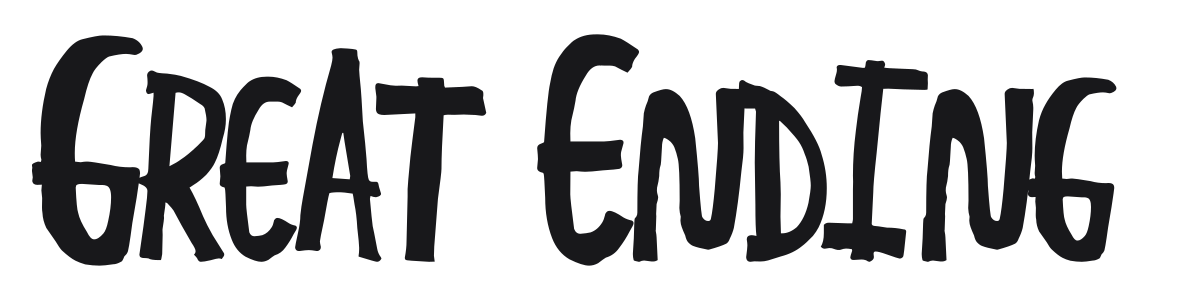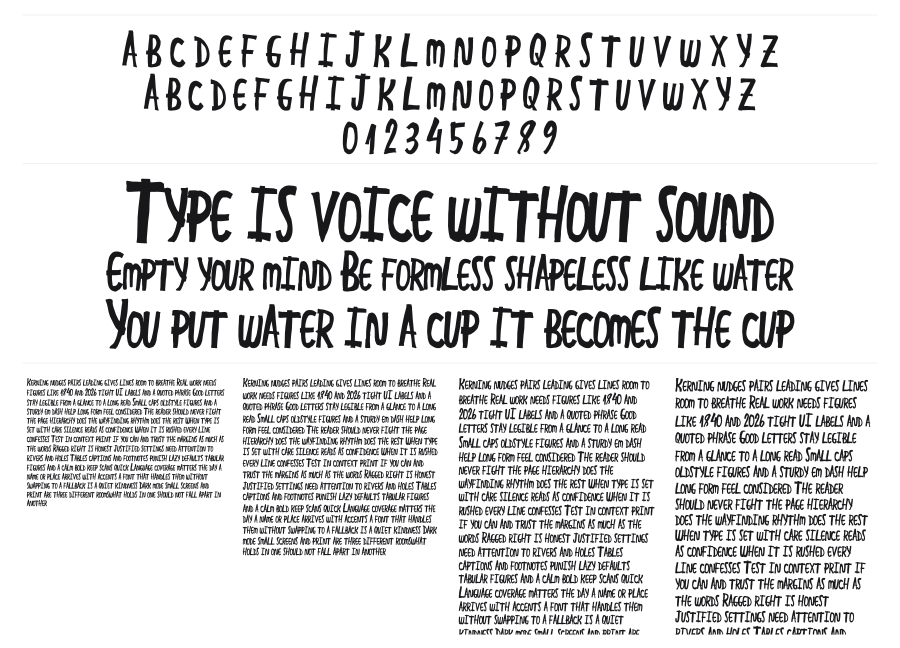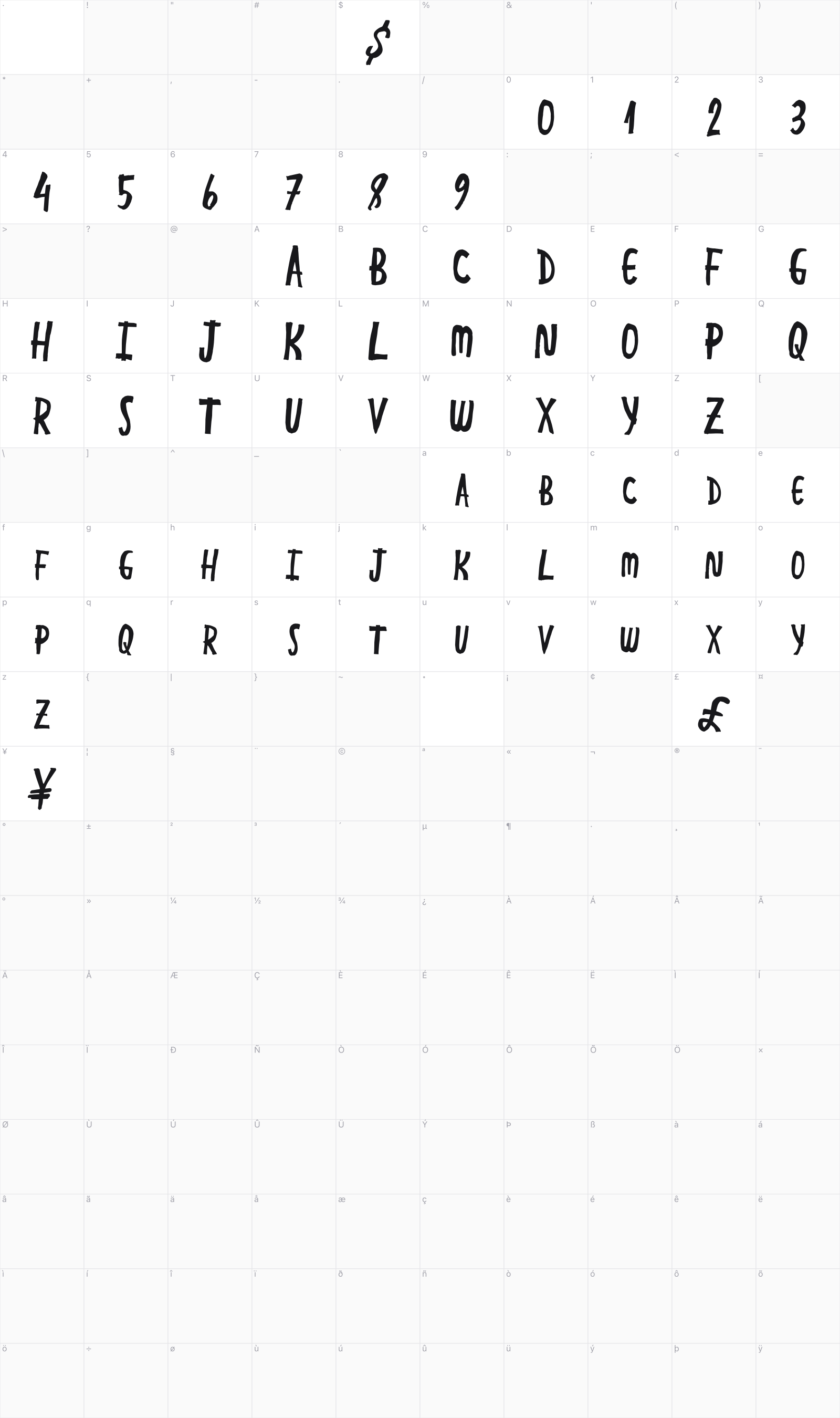
Great Ending
Great Ending is a bold casual hand-lettered font from Xerographer Fonts with thick, marker-style strokes and a deliberately rough, spontaneous texture. The irregular letter heights and raw ink-like edges give it an authentic handmade quality that formal scripts can't fake. Works best large, where the personality reads clearly.